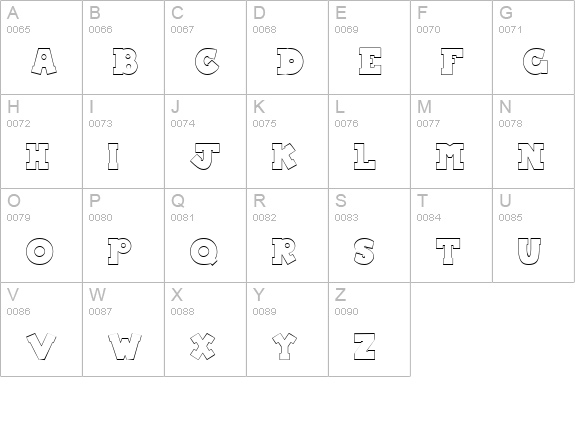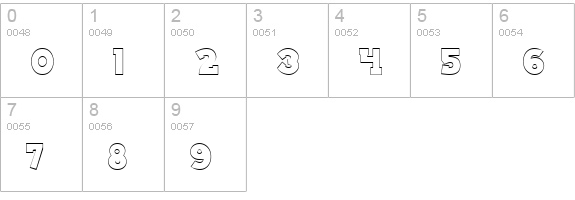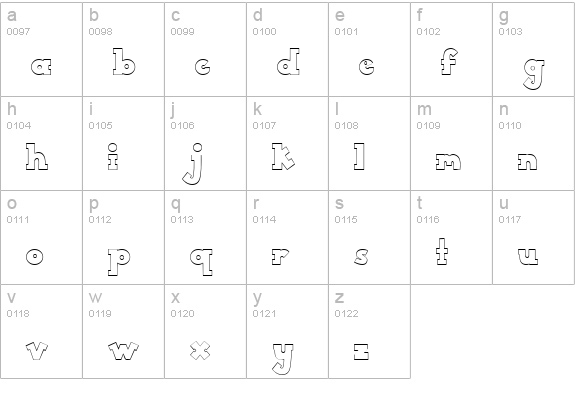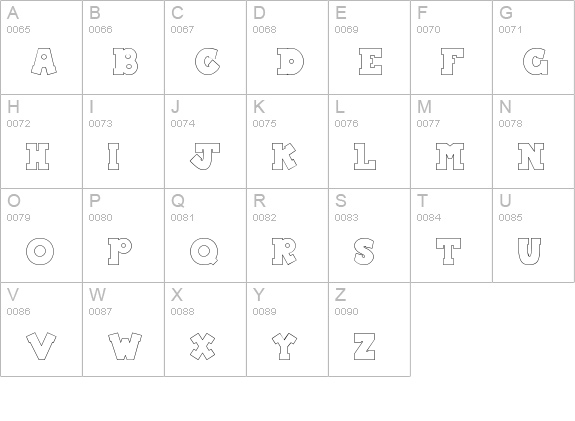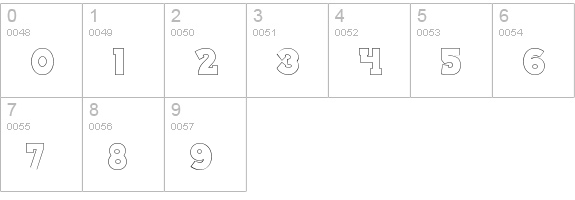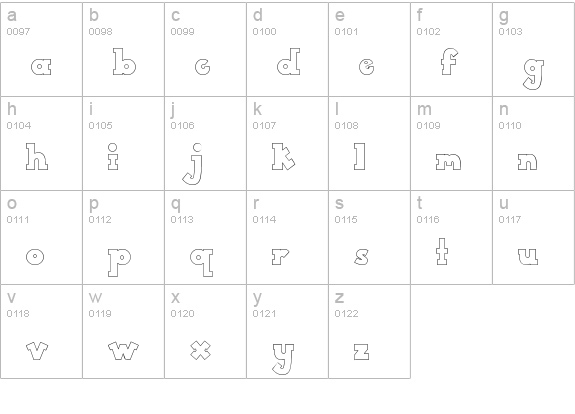
CK Big Boy Font Details
CK Big Boy font is a bold and eye-catching typeface that exudes confidence and strength. With its thick, blocky letters and clean lines, this font is perfect for making a statement in your designs. Whether you're working on a poster, logo, or any other project that requires a powerful and impactful font, CK Big Boy is sure to deliver. The best part? CK Big Boy font is completely free to download at FontsMarket.com. So you can add this versatile and dynamic font to your collection without breaking the bank. Don't miss out on the opportunity to elevate your designs with the striking presence of CK Big Boy font. Download it today and start creating bold and memorable designs that demand attention.